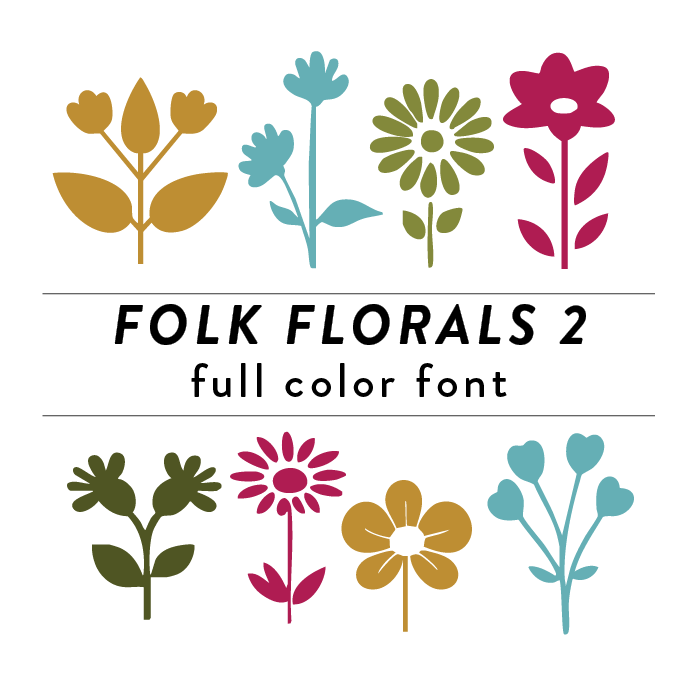
Folk Florals Full Color Font 2 is a decorative font design inspired by flowers, trees, branches, and leaves. It features intricate and colorful floral elements that add a whimsical and nature-inspired touch to any project. This font is perfect for creating eye-catching designs for invitations, greeting cards, DIY home decor, and more. This font is a OTF craft font that will appear in color only when used with the silhouette software.